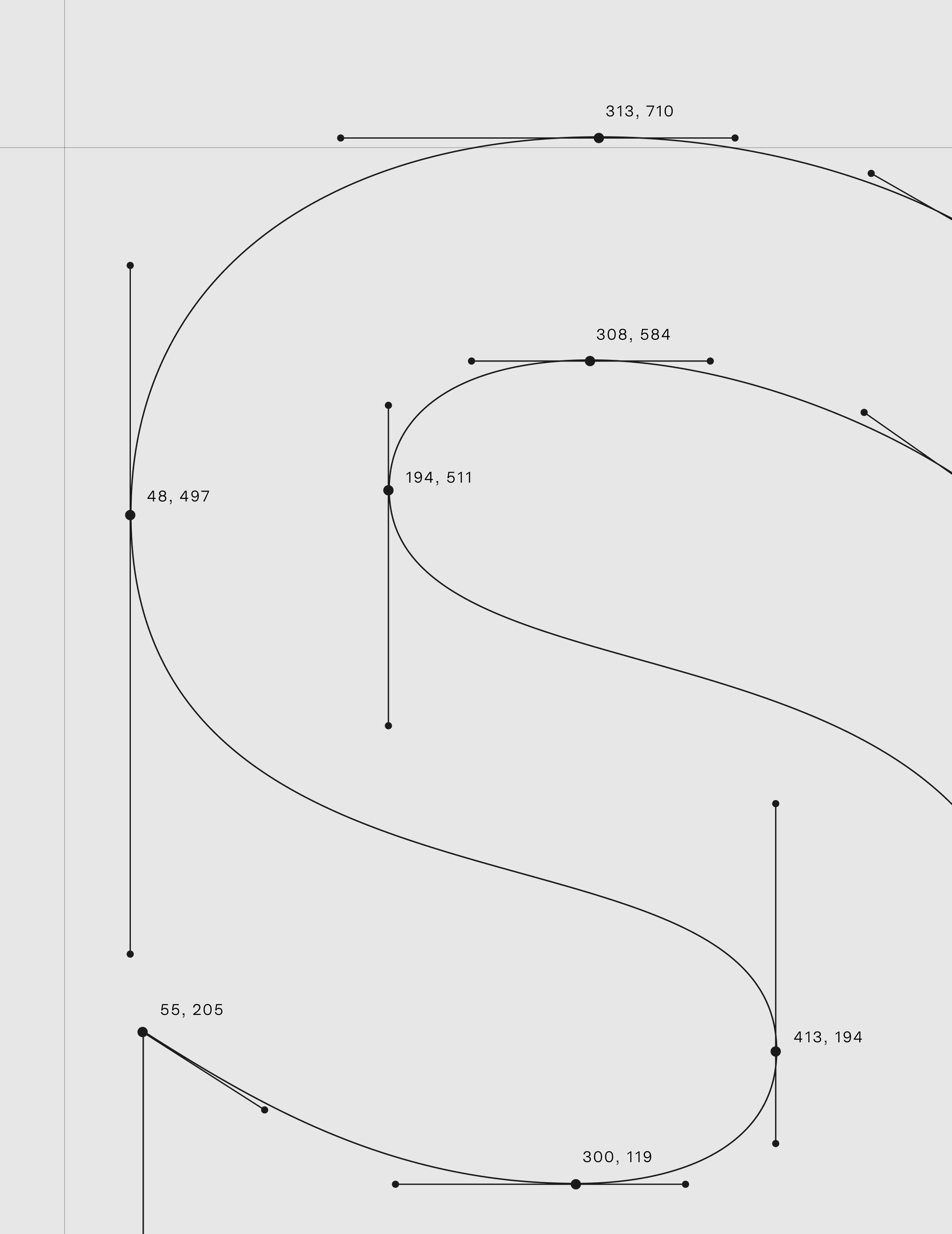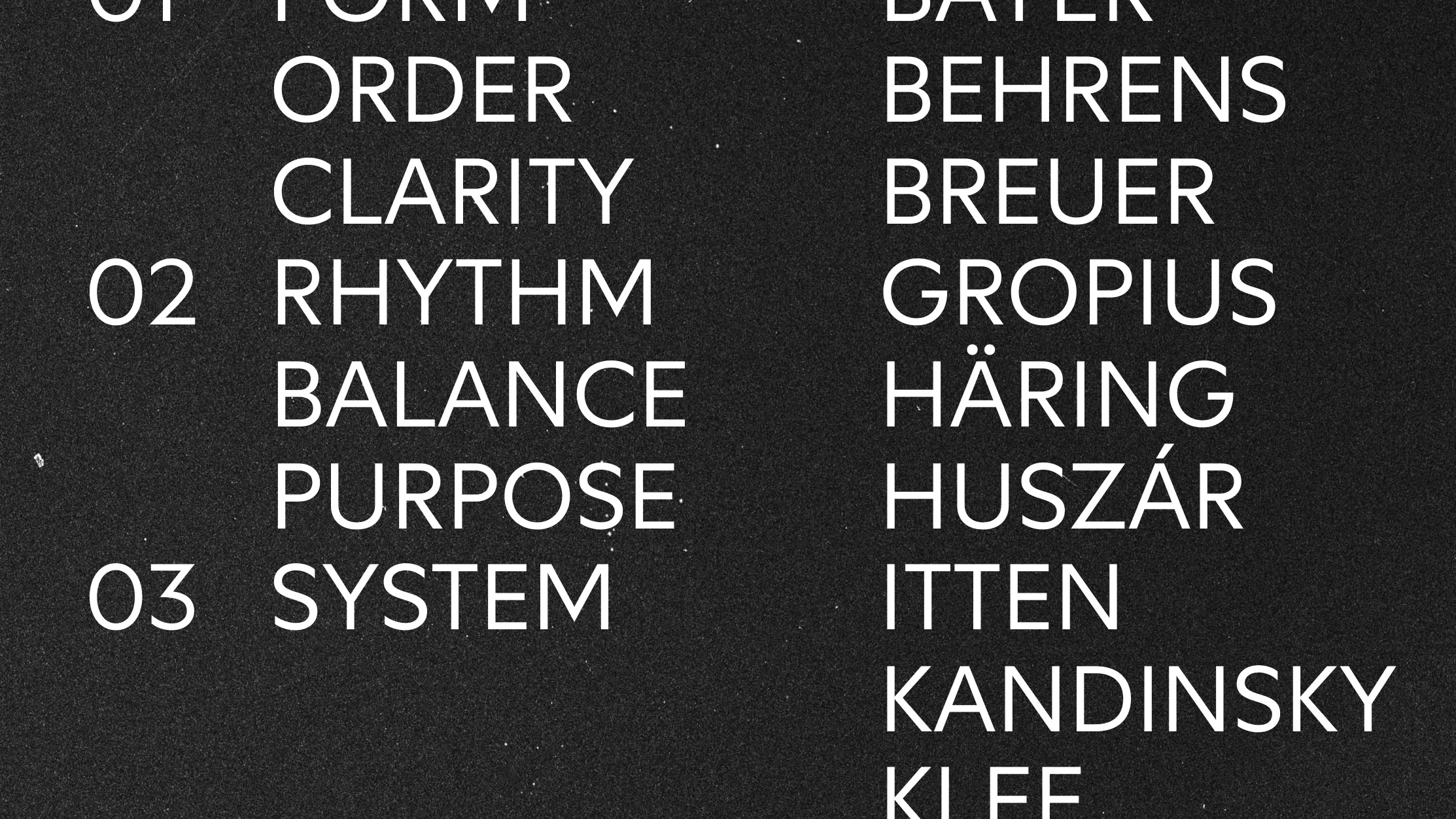
Neurath rethinks Futura with a more human approach, balancing geometric precision with warmth and clarity. Designed for contemporary branding, editorial, and digital applications, the family is complemented by Neurath Mono, extending its range into monospaced typography.